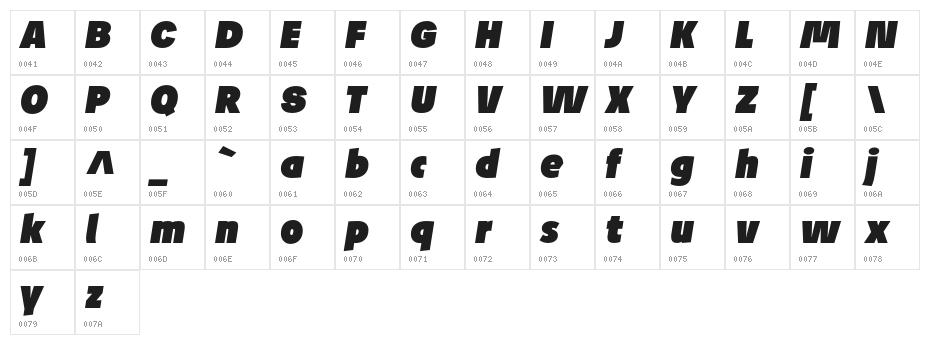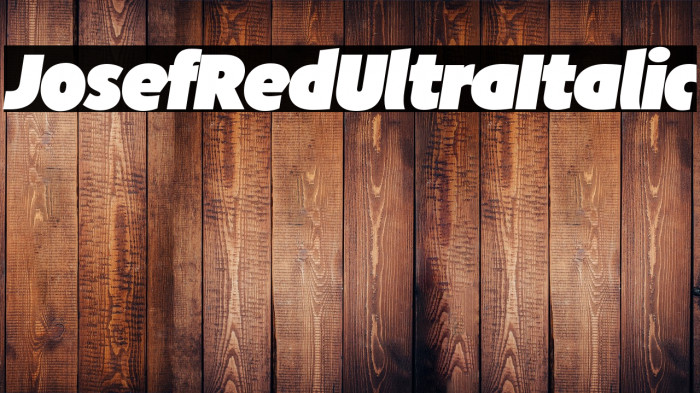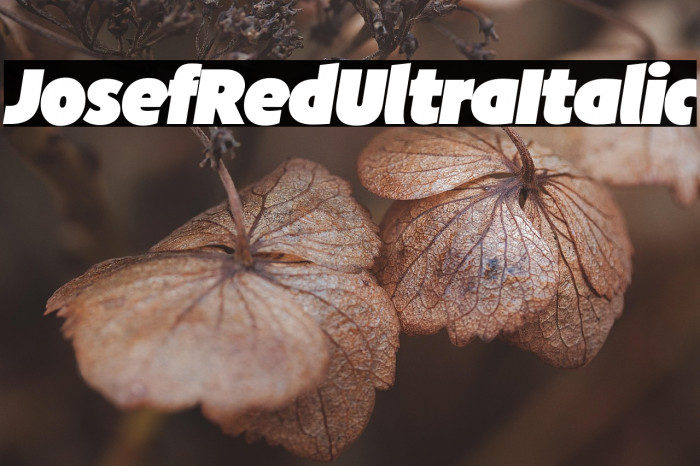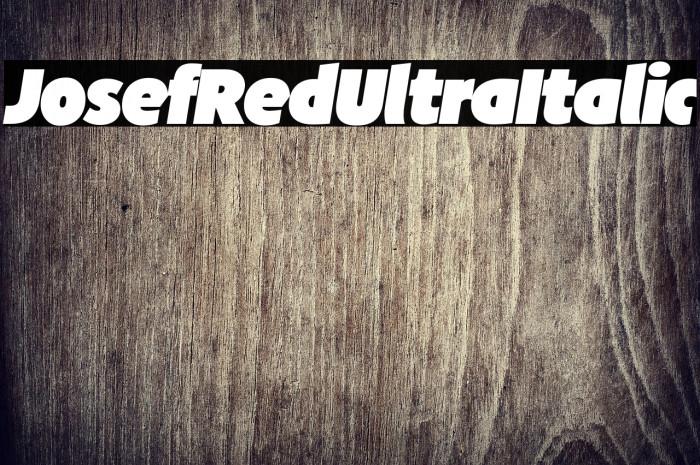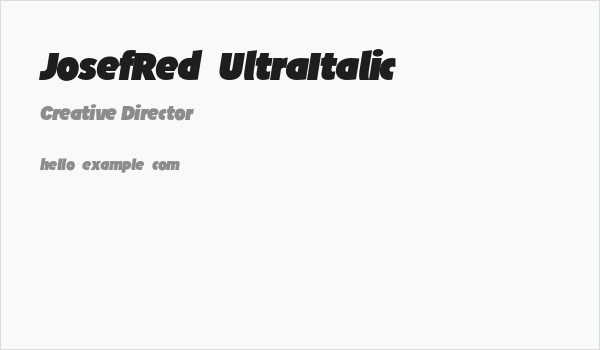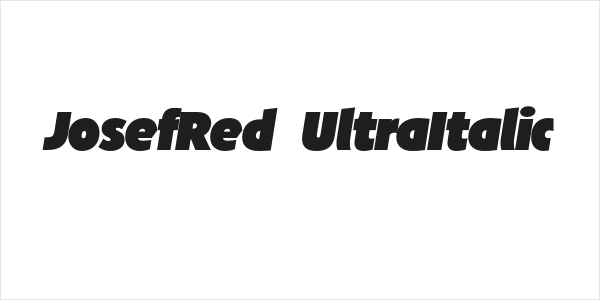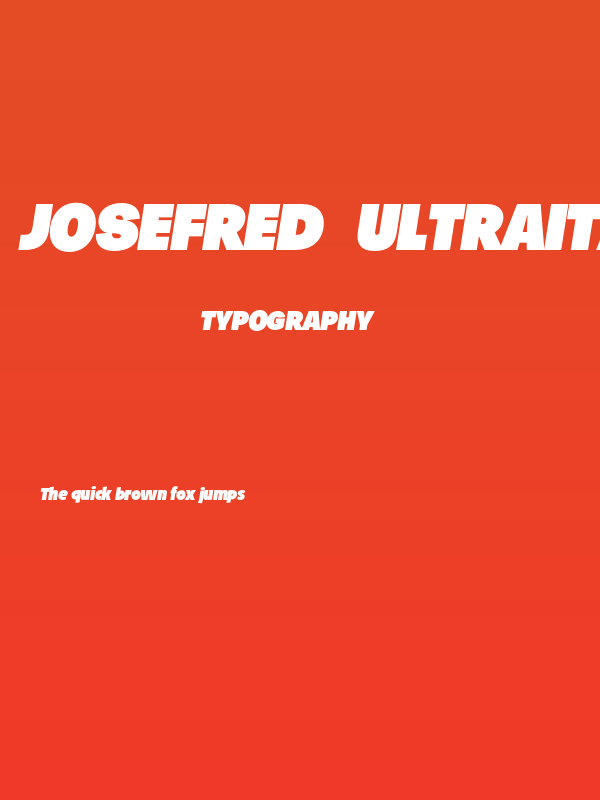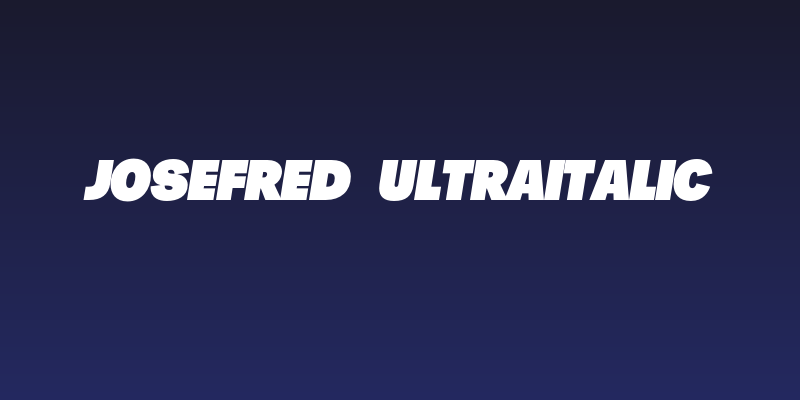
JosefRed-UltraItalic Font
JosefRed-UltraItalic Description
This font features a bold and dynamic style with a pronounced italic slant, giving it a sense of movement and energy. The characters are thick and robust, making them highly visible and impactful. The uppercase and lowercase letters maintain a consistent weight, ensuring readability while conveying a strong visual presence. The numbers and special characters are designed to match the boldness of the alphabet, providing a cohesive look across all glyphs. The overall design is modern and assertive, suitable for projects that require a strong typographic statement.
| Proposed Projects | Ideal for headlines, posters, branding, and advertising where a strong and energetic typeface is needed. |